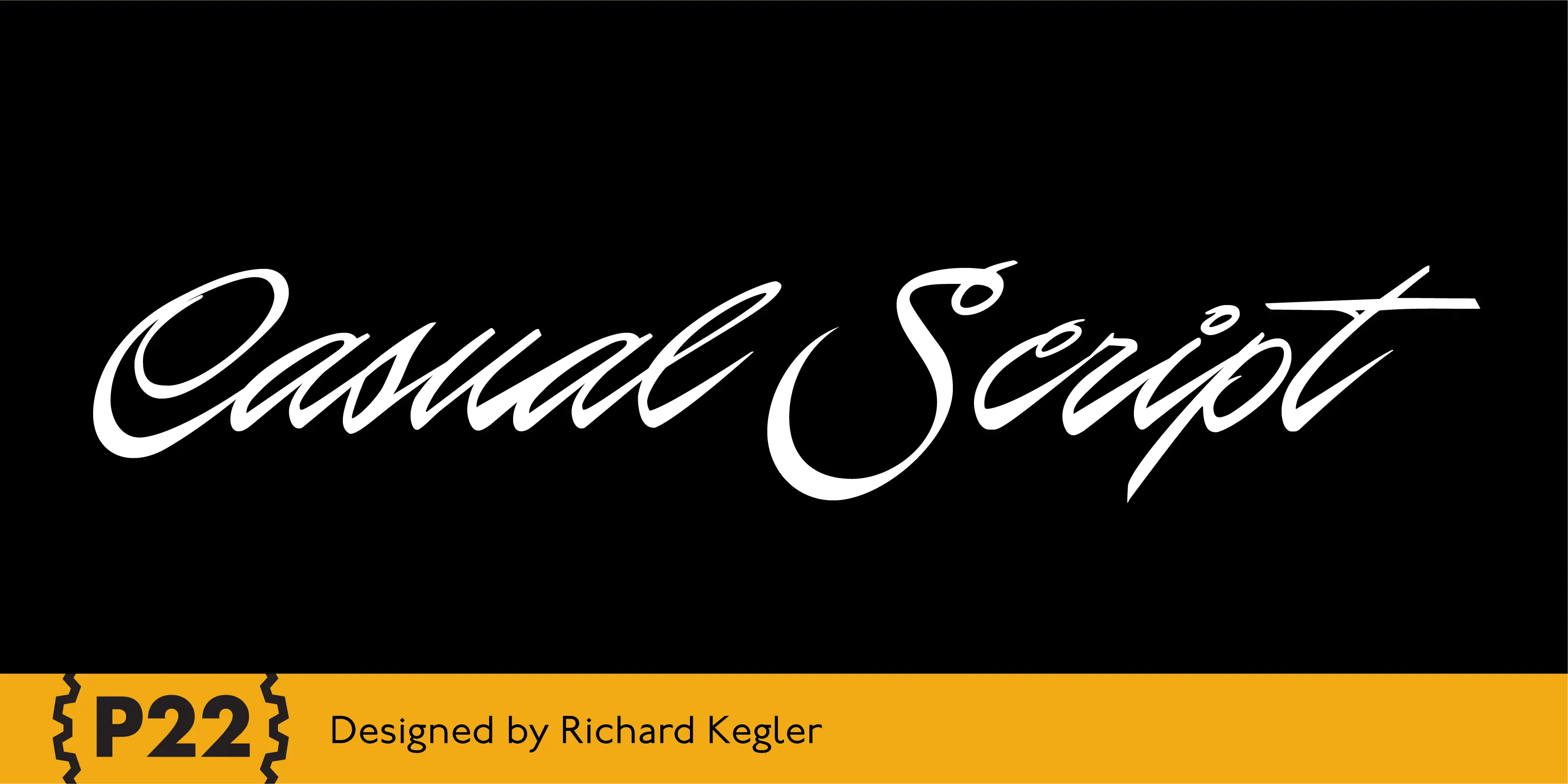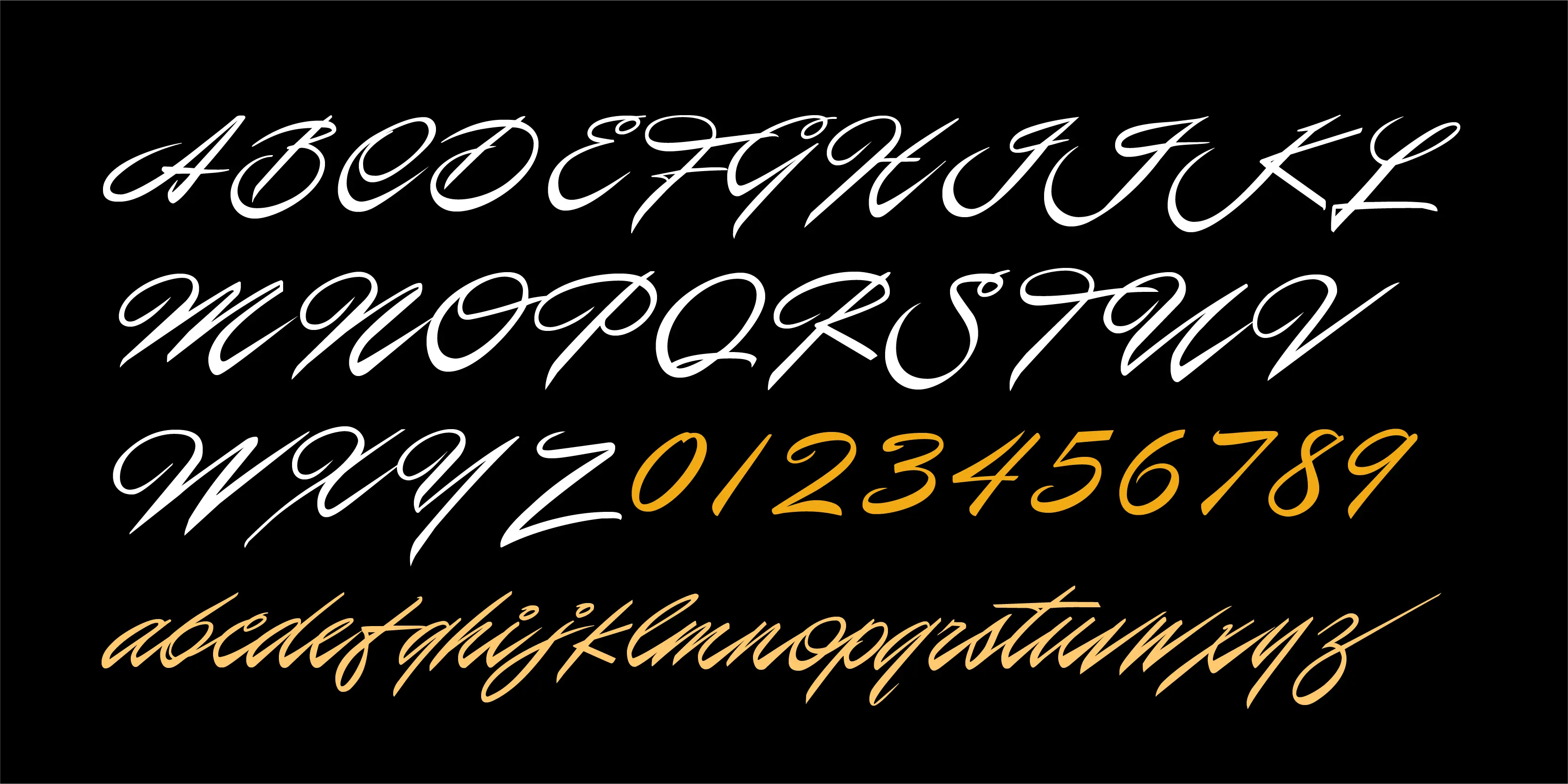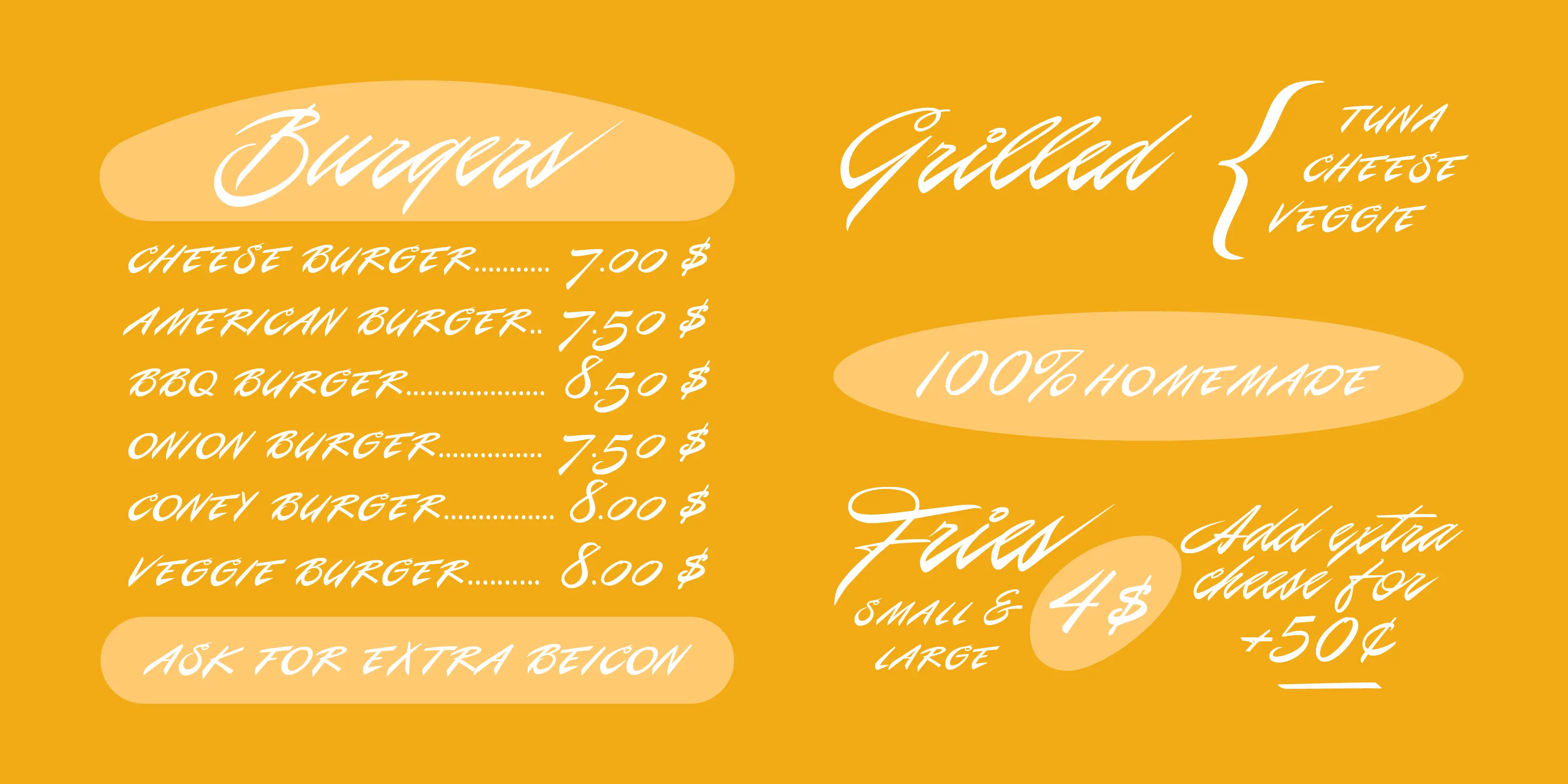
Casual Script Font
Casual Script
P22 Casual Script Pro is a flexible OpenType font based on mid-20th Century hand-drawn advertising lettering scripts. As an alternate to thicker casual script styles, this free-flowing thin brush style is evocative of vintage product advertisements and packaging lettering and is highly suitable for a retro flavor. The Pro font includes over 500 glyphs with at least 2 of all upper and lower case characters with OpenType scripting and ligatures for a more natural and random effect. There is also a unique feature not found in other script fonts: Small Caps! While it may seem unnatural for a script font to have small caps, these work well as an authentic variation of brush script lettering for advertising. Also included in the Pro version is a full Central European character set, swash characters and more. OpenType features include: Small Caps, ligatures, discretionary ligatures, swashes, contextual alternates, stylistic alternates, Old Style/Lining Figures
• Old Style Numerals
• Small Capitals
• Swashes
Contextual Alternates
Swashes
Stylistic Set 1
Stylistic Set 2
Oldstyle Figures
Small Capitals